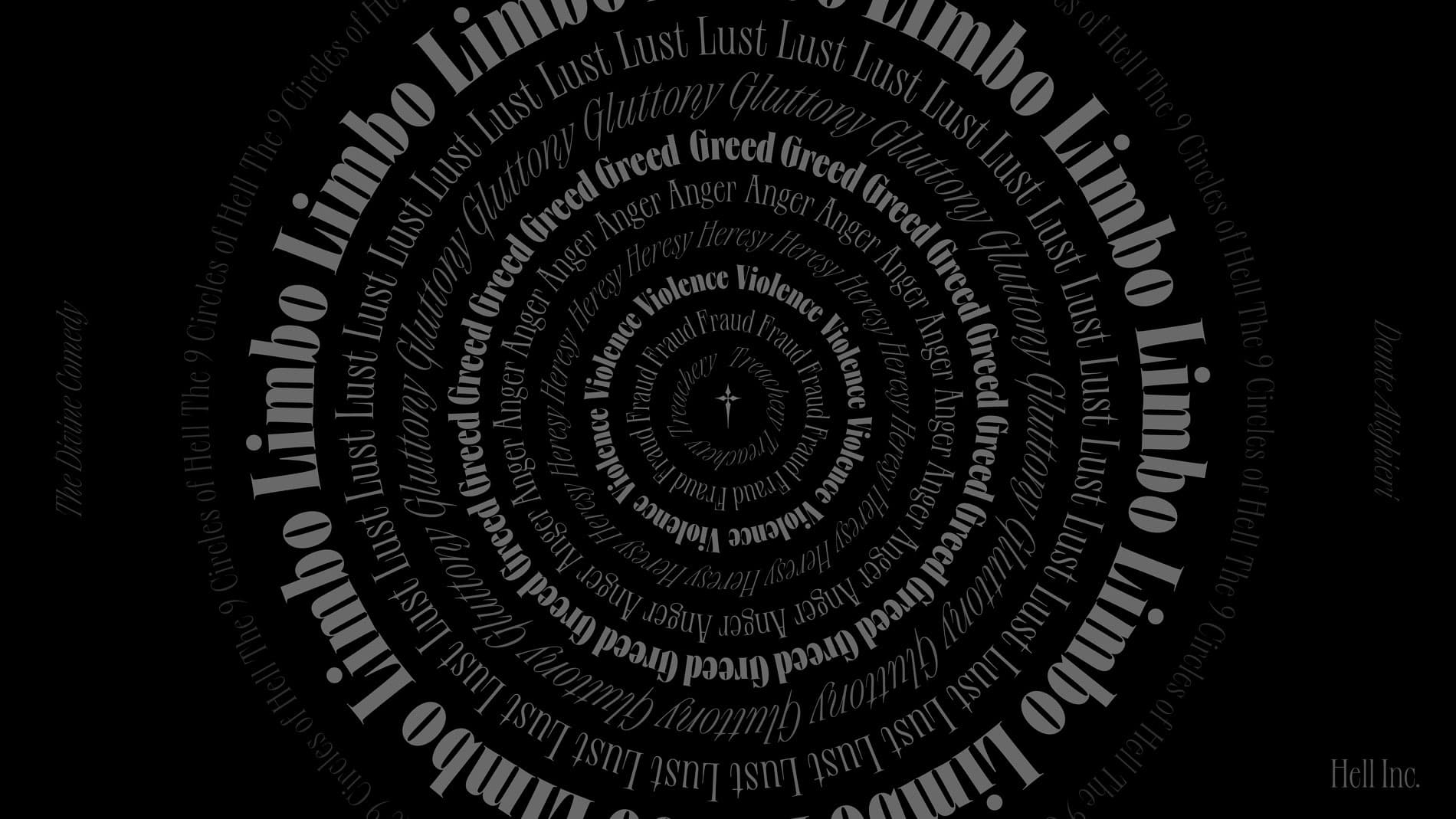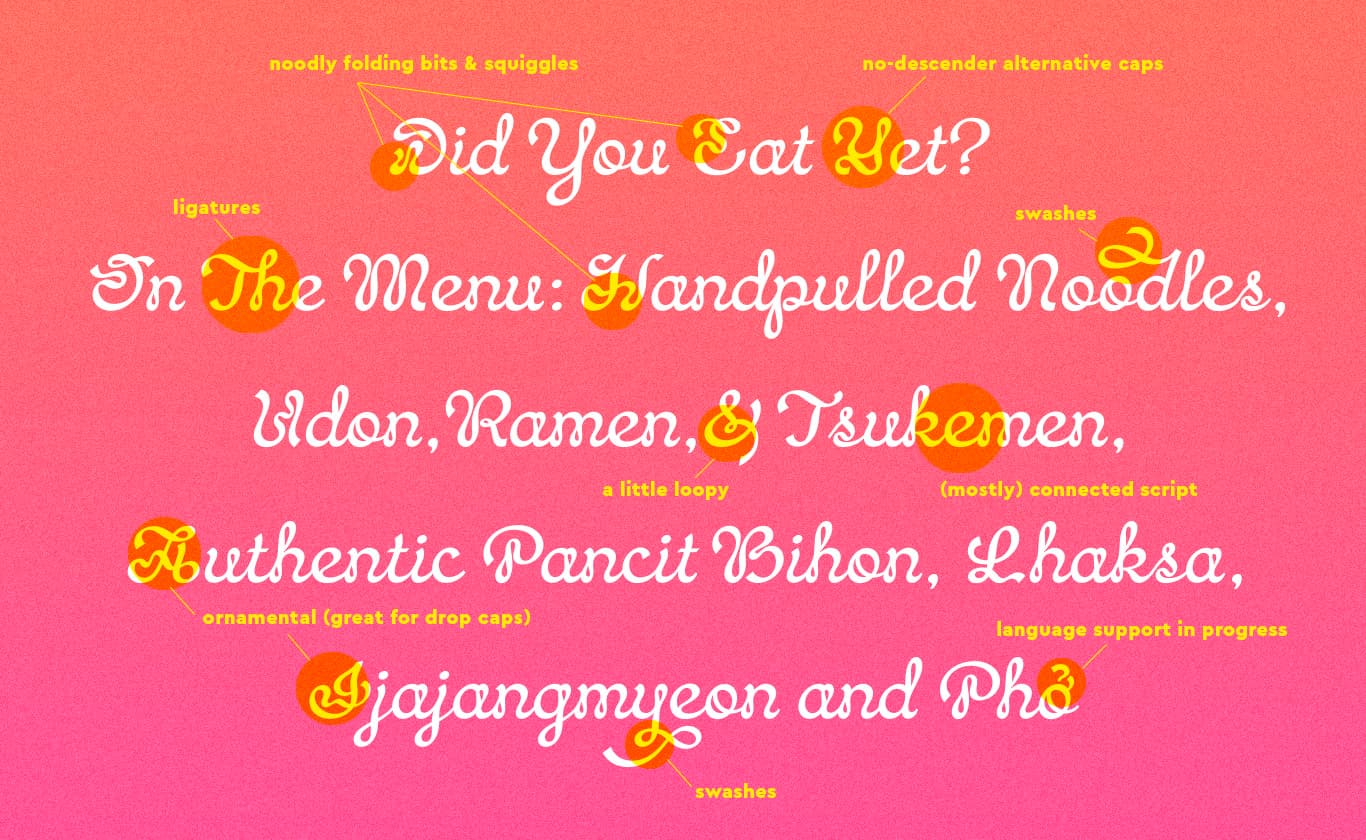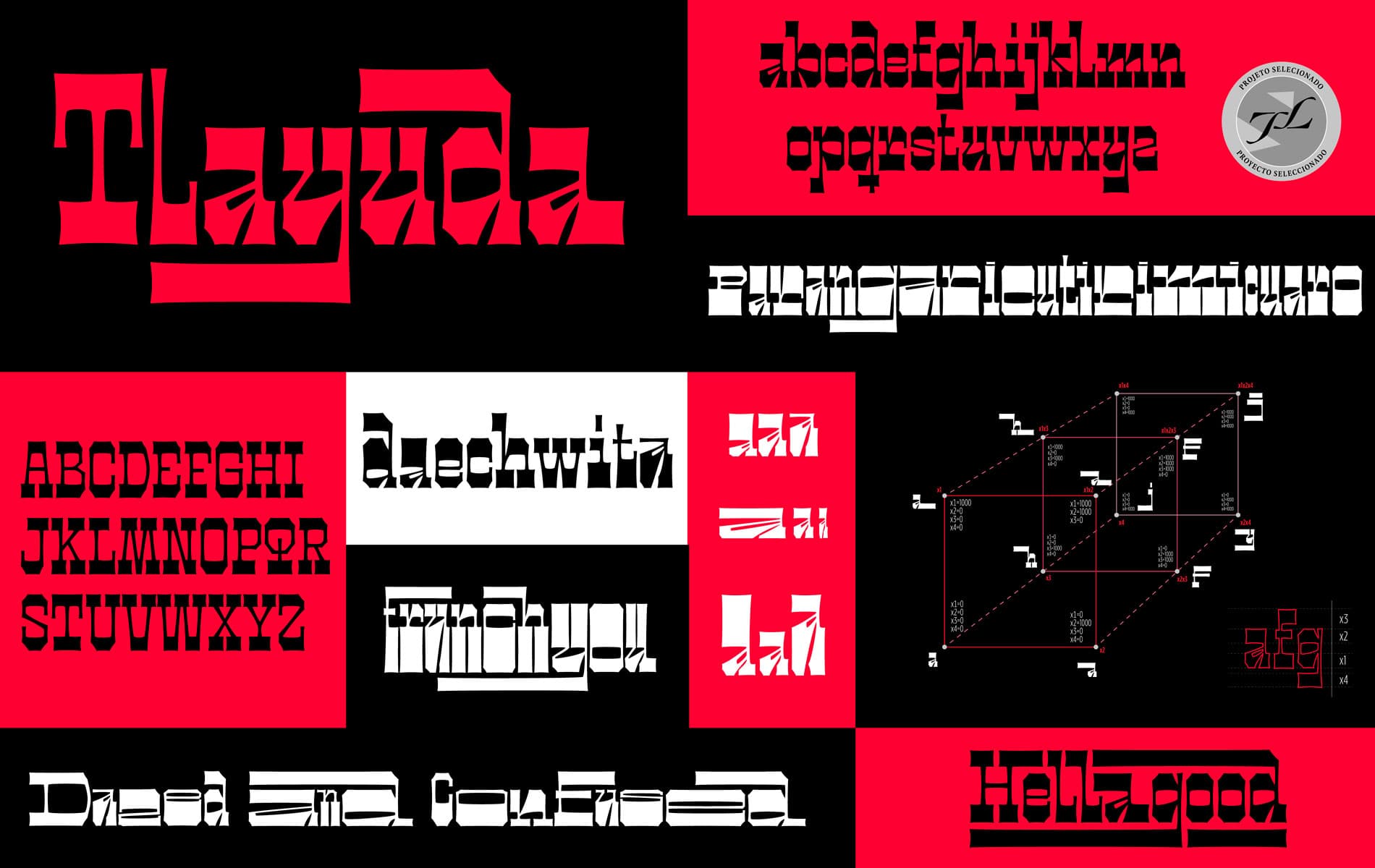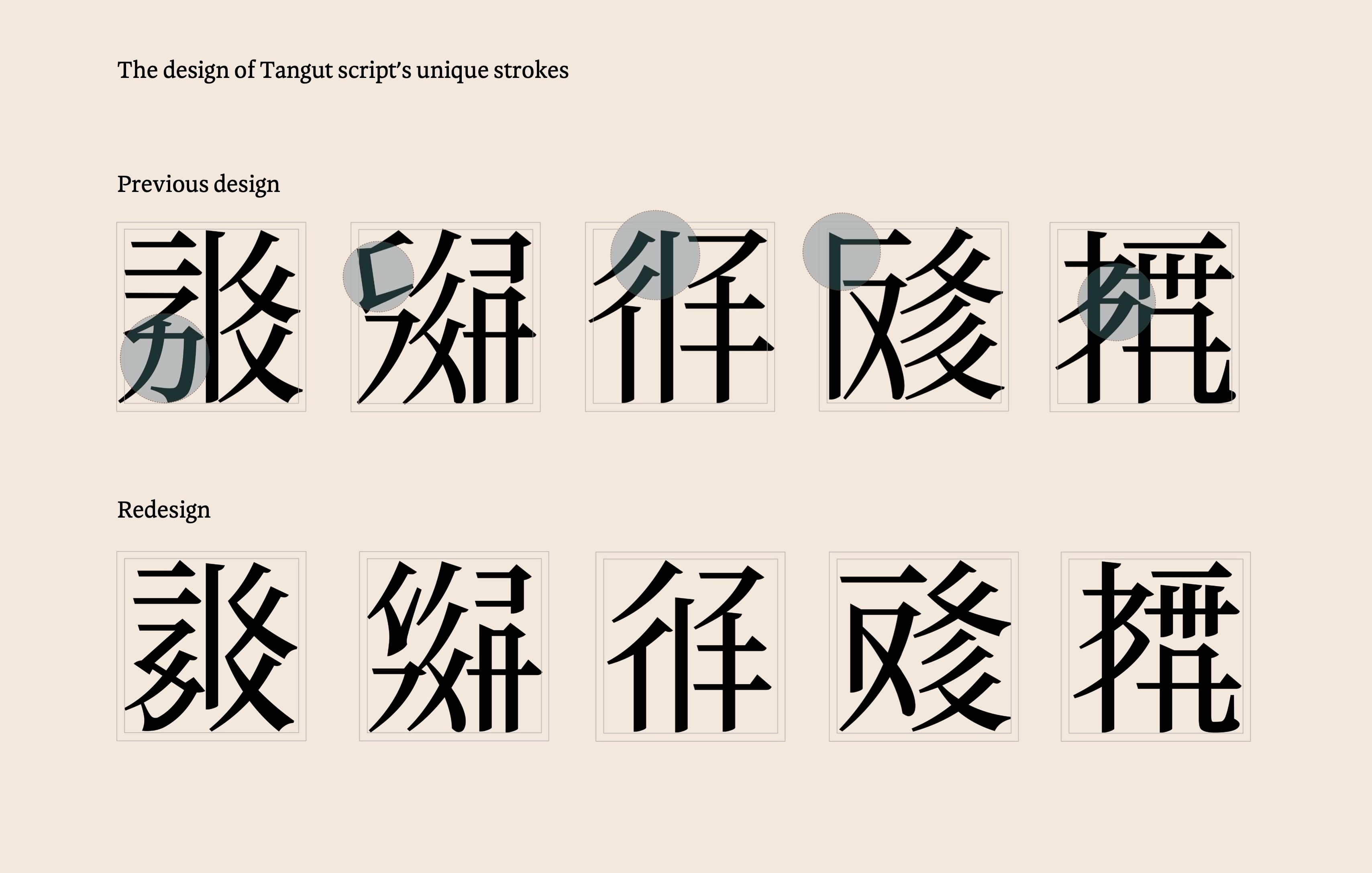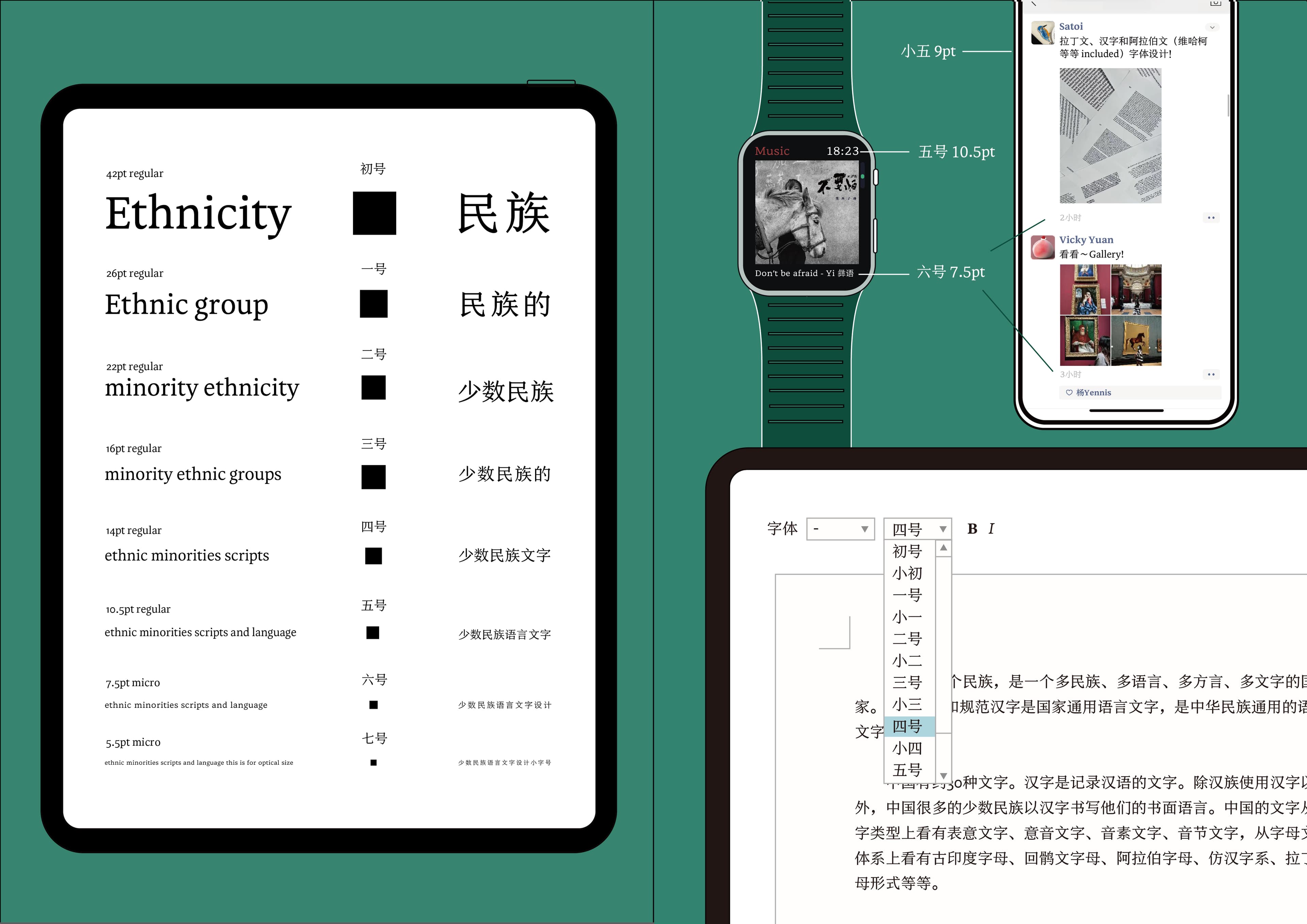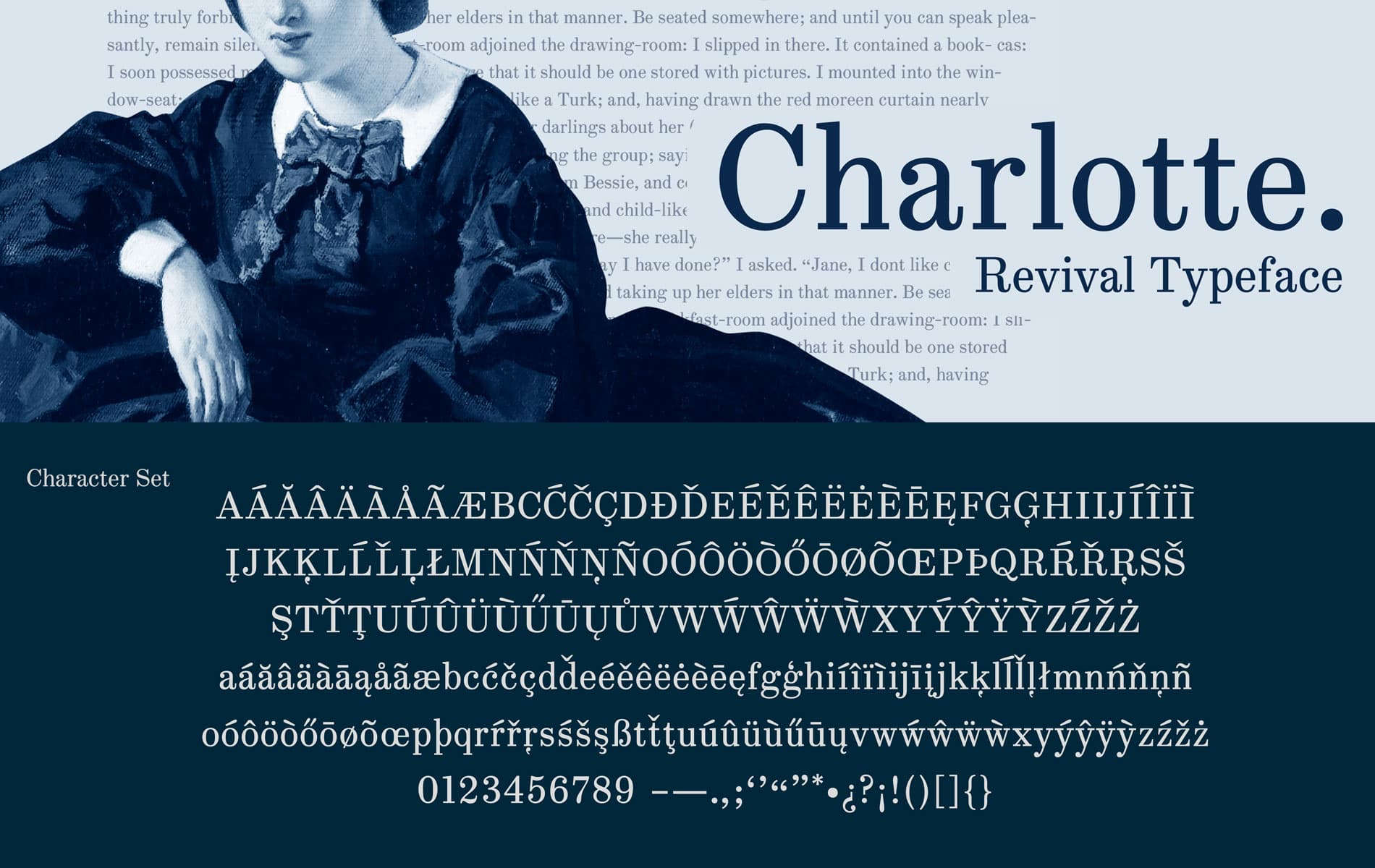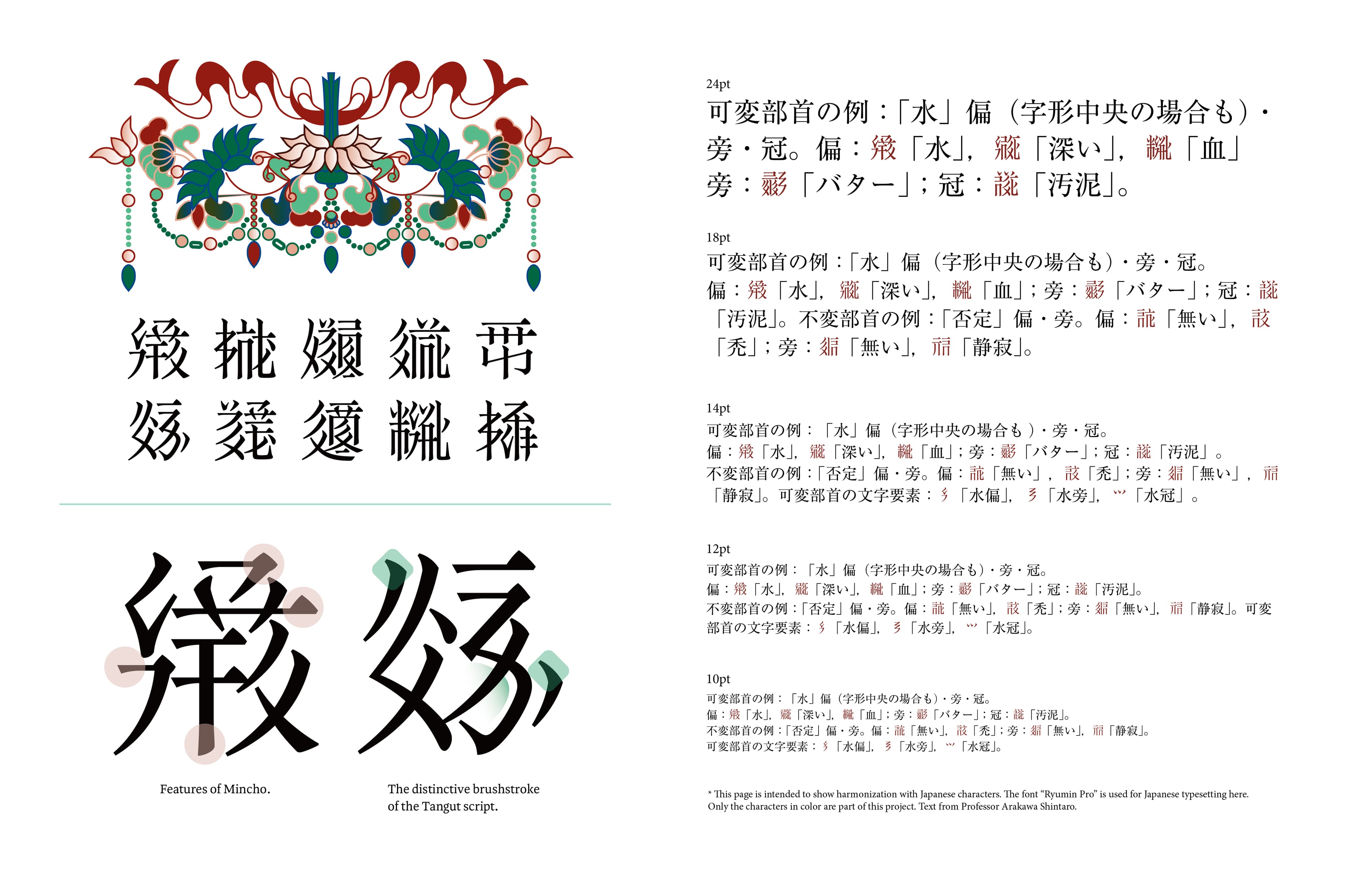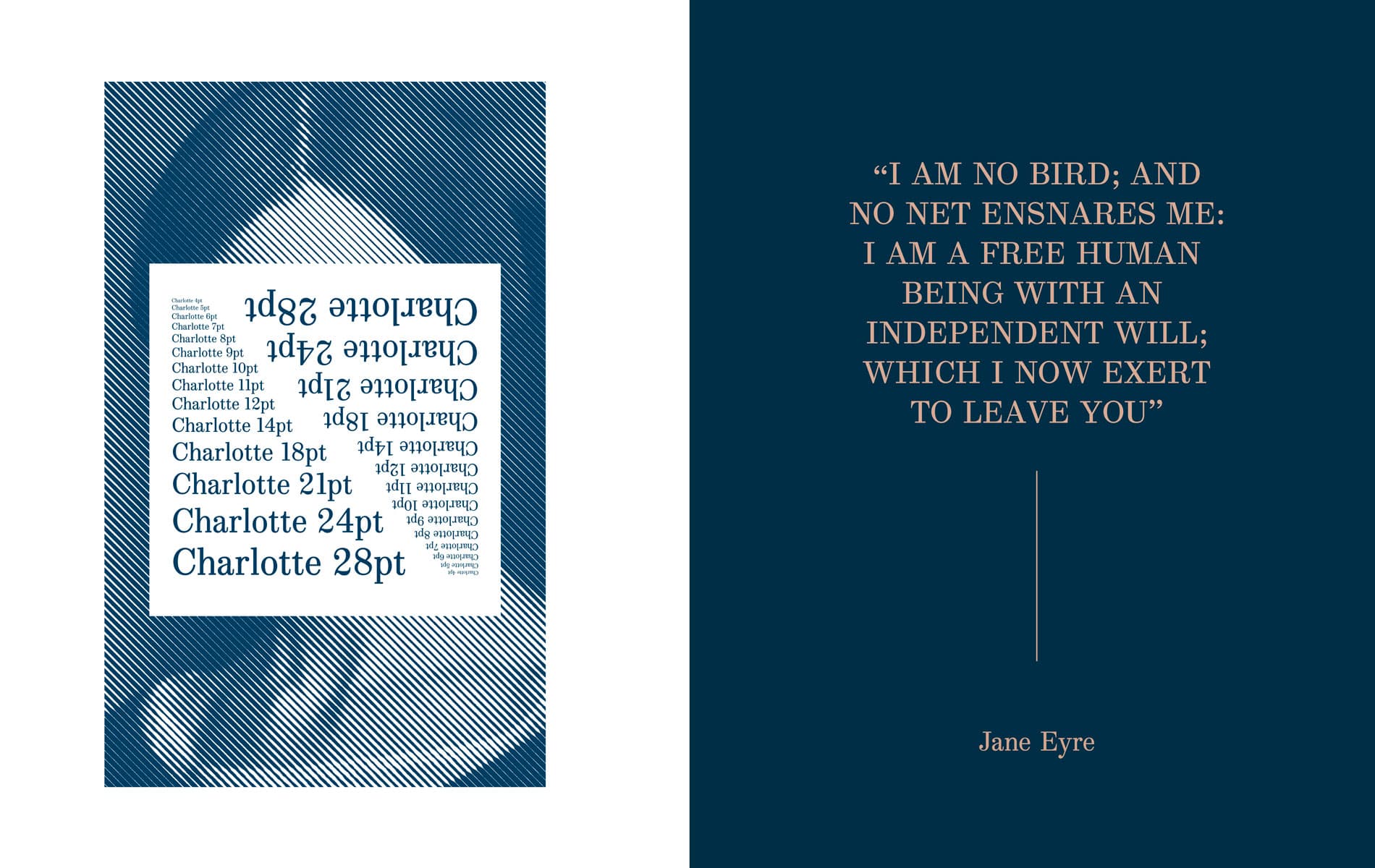
Please join us in congratulating Xicheng Yang, Arlyn Ramos, and Adriana Garcidueñas as this year’s finalists. All three share a genuine passion for type and want to use this medium to preserve their cultural heritage.
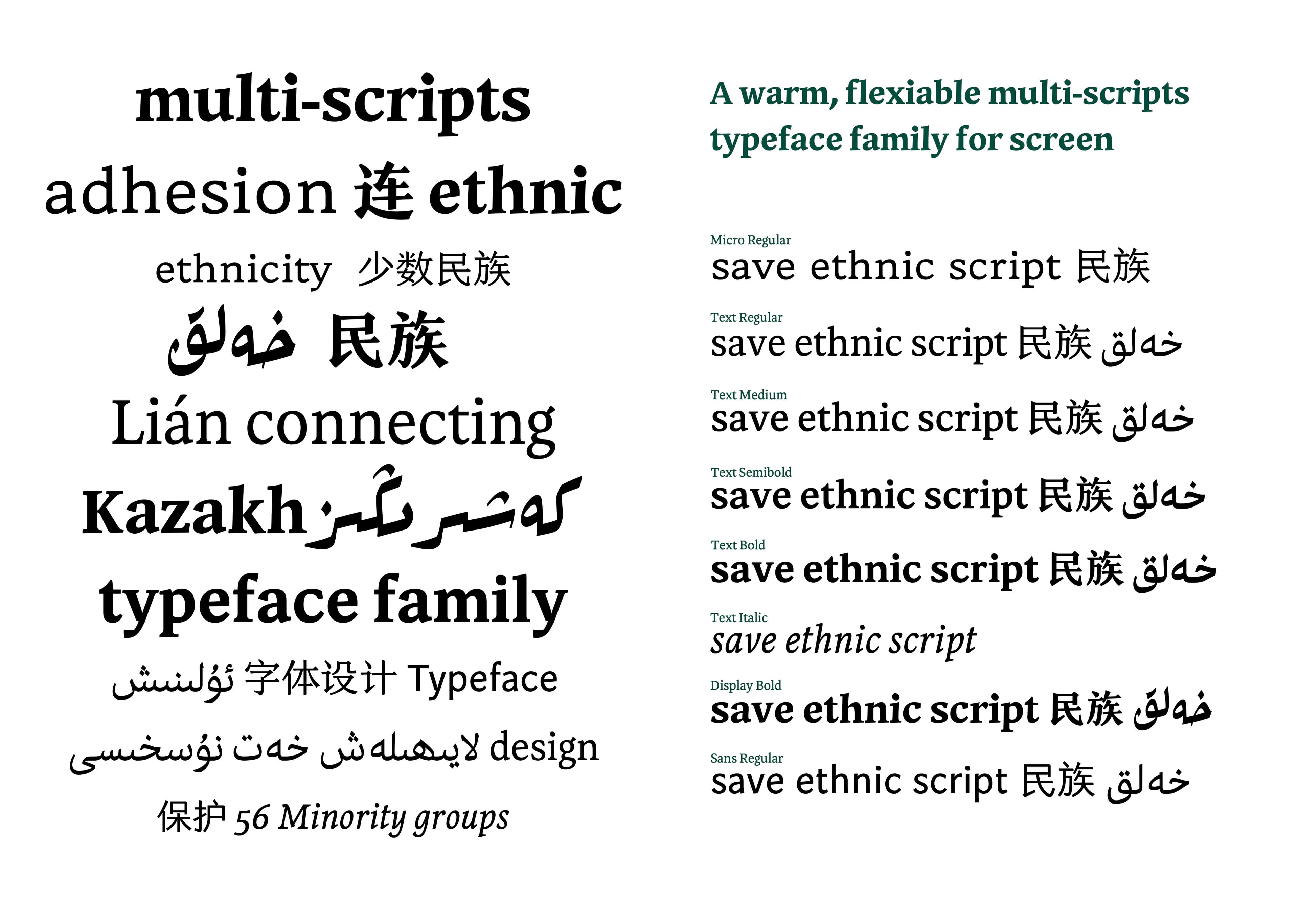
Adriana, Arlyn, and Xicheng share not only a passion for type but also a relentless drive to learn and contribute to the field. Adriana discovered her love for type at a young age, and despite limited resources, she pursued self-education—taking every course on fonts she could find. This led her to a close-knit community of fellow type designers. Her typeface, Tlayuda, is currently in development and is an ambitious variable typeface with a delightfully eccentric flair.
Arlyn came to type later in her career as a multidisciplinary designer but hasn’t stopped creating since. Her prolific output often incorporates her second passion—traditional cuisine—resulting in whimsical, beautifully executed typefaces inspired by her everyday surroundings.
From the moment we learned of Xicheng, she impressed us. She has completed her Master’s and is now pursuing a PhD in Typeface Design at the University of Reading. Beyond her impressive academic accomplishments, Xicheng’s dedication to digitizing Tangut, an extinct script from China, to preserve its cultural heritage is remarkable.
We’re thrilled to introduce these three talented type designers, who are poised to make incredible contributions to the field.
Xicheng Yang
Xicheng Yang is a typeface designer from China, completed her Masters in Typeface Design at the University of Reading, UK, and is now a PhD student in the same department. Her research focuses on developing digital typefaces for the Tangut script, an extinct script used primarily in 11th-13th century China. She has redesigned Noto Serif Tangut for Google Fonts at @liuzhao_studio. She won awards for her typeface designs, including New York TDC awards and Tokyo TDC for AraTangut, and New York TDC Young Ones awards for Lyean. She also presents her research at conferences, promoting the cultural heritage of Tangut and other minority scripts in China.
M. S.: How does your background and upbringing shape who you are? How does your origin story shape your approach or drive to design?
Xicheng Yang: My grandfather introduced me to the beauty of Chinese characters through calligraphy at a young age, which gave me a deep appreciation for Chinese cultural heritage. Growing up in such a culturally rich background made me feel proud of China’s culture. After further study and typeface projects I discovered a largely undeveloped amazing Chinese cultural heritage. There are so many scripts are or were used by different groups of people in China. But there’s not enough effort made in developing digital typefaces for them. As someone from the younger generation, with a strong connection to the digital environment, I feel a great responsibility to preserve these scripts by bringing them into the digital era. This drive to preserve and promote cultural heritage is at the core of my design philosophy.
As someone from the younger generation, with a strong connection to the digital environment, I feel a great responsibility to preserve these scripts by bringing them into the digital era.
Xicheng Yang
M. S.: You have a rich background in type design and are now going for your Ph.D in the field! Tell us about your academic journey and what you are now pursuing at Reading.
Xicheng Yang: After completing my undergraduate studies in graphic design in Beijing, I knew I wanted to dive deeper into type design. That’s when I decided to pursue a Master’s at the University of Reading, which has a strong course focusing on typeface design. My experience there broadened my understanding of typeface development across different scripts. Now I’m in my second year of my Ph.D., where my research focuses on the Tangut script. I’m developing new digital typefaces for this extinct script, making them functional for modern usage while staying true to their historical origins. The research explores the process of inventive re-imagining and adaptation, enabling new uses of the script. Through historical and typographic analysis, as well as practical investigations, it aims to offer a method or model to support documentation and enhance the understanding of revival projects for extinct scripts. It provides a framework for working with archival forms to inspire new uses in digital spaces. Additionally, this project bridges the gap between existing linguistic and historical research and the design of letterforms for extinct scripts, providing a model for interdisciplinary collaboration. It fills the gap of lacking detailed documentation for the revival process of CJK (Chinese, Japanese, Korean) scripts or other sinoform scripts (not only Chinese characters but also scripts influenced by them and individual Chinese characters incorporated into other writing systems), offering essential resources to support other researchers and designers in this field.
M. S.: If you haven’t mentioned it already, tell us about your revival project with Tangut. Why is it important to research and revitalize ancient and other, as you put it, neglected scripts?
Xicheng Yang: My Tangut revival project will start soon as part of my Ph.D. Tangut typefaces are currently used mainly in academic papers, and scholars in different countries have different preferences in terms of font style. Tangut was created in the 11th century and was used for about 300 years, so it didn’t originally have styles like SongTi that are common today. However, there are some Tangut typefaces in SongTi style, which brought up a discussion on social media about: whether a new style should be applied to the Tangut script, and whether this is the behaviour of one culture being forced upon another. Therefore in my project, I will explore the style of Tangut typefaces and develop new digital typefaces suitable for different typographic environments, such as multi-script settings, varying text lengths, and both horizontal and vertical writing direction’s layouts. In 2022, together with my MATD (MA Typeface Design) classmate Kaito Osawa at the University of Reading, we've developed a custom Tangut typeface, AraTangut, for the paper of Japanese Tangut scholar Shintaro Arakawa. It creates a unique and ethnic flavour between Mincho (SongTi) style and Tangut calligraphy, which will be included in my Ph.D. research.
It is important because while there are scholars studying the script itself, there hasn’t been much effort to create functional, modern digital typefaces for it. Reviving extinct scripts like Tangut helps preserve cultural heritage. These scripts aren’t just historical artefacts—they can have a place in modern design and academic research. Additionally, it also provides a framework for reviving other endangered or extinct scripts, such as Khitan scripts or Old Uyghur script, by documenting the process of translating historical forms into digital media. By designing a Tangut typeface, I’m contributing to a broader movement of bringing neglected scripts back to life, ensuring they remain part of our shared history.
Arlyn Ramos
Arlyn has been doing branding, graphic design, web, ux, and lettering for more than a decade. She has designed for clients big and small, from beloved local small businesses to Hawaiian Airlines. She recently graduated from Type@Cooper's Condensed Type Program with a certificate in typeface design. At Cooper Union she juggled side trips to bakeries and neighborhood adventures while working on her typeface project for school. She often smuggled bites of pastries in between glyph-making and type critiques.
Born in the Philippines and raised in Hawai’i, Arlyn hopes to contribute meaningfully to the type community in the ways she can as an Ilokano Fil-Am woman designer from Kalihi. She aims to create representation for people like herself, advocate for better language support and the design needs of her community, create thoughtfully crafted custom type for local Hawai’i brands, and share her learnings about design in her writing.
M. S.: When referring to your passion you say “the stoke is real”, or may we suggest “the stroke is real”, How has your passion pushed you toward your dream of becoming a type designer?
Arlyn Ramos: Hahaha, yeah, one of my bosses once said, “the stoke is real,” when making an observation about me. I do have a fire—a hunger and a curiosity. Maybe I don’t know how to be any less stoked, because it’s fun in and of itself to explore, experiment, and make things. It’s good to be excited about the work you’re doing and the process itself. It helps you stay motivated especially when you don’t feel good enough, have trouble flowing, or experience failures.
Maybe “stoke” is hope, too. Many times during my creative career I was completely lost and questioning what I was doing. But there was always at least a little bit of fight left inside, and I’m so glad I didn’t give up on whatever this was supposed to turn out to be. Although I always felt at home playing with letterforms, I actually didn’t know I wanted to be a type designer until recently. Then this domino effect happened, starting with learning the Glyphs app through Victor Baltus, then taking Juan Villanueva's Type Electives class and loving it, and finally, going to New York this past summer to study typeface design at Cooper Union’s Condensed Type program. Years of keeping up the stoke, passionately learning and creating, while searching, praying, and listening to life’s little nudges have led me here.
When we provide greater language support, it means greater inclusivity for various peoples and cultures. Needless to say, having the glyphs available means a night-and-day difference for semantics
Arlyn Ramos
M. S.: Tell us why it is important to advocate for greater language support in Latin typefaces, such as Hawaiian and Vietnamese.
Arlyn Ramos: Living as a designer in Hawai’i, I work with Hawaiian words often. Many place names are in Hawaiian, Hawaiian values and concepts are often integrated into daily life and local culture, and don’t forget the names of food! When we provide greater language support, it means greater inclusivity for various peoples and cultures. Needless to say, having the glyphs available means a night and day difference for semantics. And being limited to certain fonts is stifling. I really notice this limitation on the web. Having more fonts with support means more possibilities and options for visual expression.
M. S.: From your application, it’s clear you love food. Tell us why it is so important to you and how it has influenced your type design. Take us through examples of your typefaces that exemplify this.
Arlyn Ramos: Food is my main way of connecting to culture and to other people. I love learning about food, cooking, sharing meals, and going on foodie adventures.
Food can carry so much power and feeling. There are recipes, flavors, and dishes I associate with core memories. This is probably why food is a recurring theme in my work.
For my typeface, Noodeau, the inspiration is clear—noodles. I think about and eat noodles quite a lot. Noodles have been with me through the ups and downs of life—especially the downturns. So I was compelled to design a font that captures a distinctly noodly spirit. After a few rounds of type cooker sketches, I started pulling Art Nouveau inspiration in and ended up drawing some promising squiggles and folds. Eventually, the font adopted a little bit of a slant to facilitate forward movement, and I also decided it needed to be a connected script for maximum noodle power. This typeface project presented many challenges in achieving legibility, evenness of color, and balance. But with help from my mentors (shout out to Type Electives), a lot of massaging, and a little bit of rule-breaking, in the end the system somehow works.
Adriana Garcidueñas
Adriana Garcidueñas is a graphic designer and type designer. Studied in the TypeWest program in 2023 with a full BIPOC scholarship and also she studied at Type@Cooper Condensed this past summer. Currently she works for the arabic type foundry ArabicTypography.com directed by Tarek Atrissi doing both arabic and latin typography; she also very recently started freelancing for DOT Type Foundry (Death Of Typography) located in Singapore. She can be found being Teacher Assistant or attending to type, lettering or calligraphy workshops and when she finally has some free time she watches BTS videos ♥. (Yes, the Korean boyband).
Malee Scholarship: When did you first get interested in letterforms?
Adriana Garcidueñas: I think I became obsessed with letters from a very young age. You see, I’m dyslexic, so words and letters didn’t make much sense to me. After countless hours of practice trying to differentiate “b” from “d,” I found a method to distinguish them by making the “b” a sans serif shape and the “d” with a cursive ductus. Perhaps from that moment, a sensitivity to letter shapes sparked in my mind. Time passed, and I started to collect nice letters by printing “The quick brown fox,” because I didn’t know how to install fonts on a computer. The best next thing I could do was print them and trace them by hand to create the most fabulous and flashy homework for school (I still have those printed foxes at my parents’ house).
I think the day I taught myself how to install a font on a computer was one of the happiest days of my entire life—seriously.
I explored how to externalize my feelings of angst, delusion and disappointment, through type design, I also guess the countless hours sitting at the desk thinking about this helped as some sort of therapy
Adriana Garcidueñas
M. S.: What has been a formative experience for you in your journey to type design, and what would you recommend to aspiring type design students?
Adriana Garcidueñas: The most important thing I have found in my journey in type design is a community.
When I started in the world of lettering it was a very lonely journey for me because I lived in a small town, I didn’t know anyone who was doing the same thing as me, so I’m pretty self-taught. At that time there was not much information on the Internet about lettering or calligraphy, much less about typographic design. So I went to Mexico City and bought a calligraphy book, and I started with exercises and practices, but only with the company of this book (which was actually a compendium of calligraphy styles). Most of the time I was frustrated and desperate to get the damn ink to flow through the very flexible pointed nib, spoiler: wrong ink with wrong nib. But at that time that was all I had, so I kept practicing until one fatal day when I broke the only pen holder I had in half, and that’s not the bad news, I mean yes, but what I was practicing English Roundhand, a very soft hand and fluid style of calligraphy, that was what made me stop and realize that I was doing everything wrong and that I had to get help.
When we were confined to our homes, I first heard about the Letrástica Community—a group of people who share a love for making letters. During the pandemic, there was “Jueves de letritas” (Thursday of letters), a Zoom meeting where people got together to do TypeCookers. I was shy at first, but participating was one of the best decisions I made. In this group, I leveled up my skills with letters, learned about educational programs and scholarships, and discovered that I wasn’t alone. Now I’m happy to call many of them my friends. It’s to these friends that I run for help when I mess up a glyphs file, or need advice on pricing a font, or just want to talk about life.
I recommend type design students join a community or start their own with other type nerds (classmates or friends interested in letters). It’s enriching and super nerdy, but it’s really fun, I promise. ;)
M. S.: What has/have been the most interesting typeface design project(s) you have drawn so far? Tell us more about your inspiration and experience.
Adriana Garcidueñas: My first most interesting project actually I sketched in the first TypeCooker session with the Letrástica Community. It’s called Tlayuda because that was the word we used during that session, and it’s a font that explores the limits of variability in an unconventional way by playing with the plasticity of the letter.
Another project that I’m really fond of is called Hell Inc. It is my final project from the TypeWest program, which is a type family that takes inspiration from the Divine Comedy and the psychedelic movement. With this type, I explored how to externalize my feelings of angst, delusion, and disappointment through type design. I also guess the countless hours sitting at the desk thinking about this helped as some sort of therapy. The heavy weight represents Hell in Dante’s Inferno, the regular weight represents Limbo, and the italic weight represents Heaven—it's an allegory of redemption through weight and proportion.
And the final and most recent is my final project from Type@Cooper called Novellus, a typeface for new and eternal classics. It's a text typeface where legibility and good rhythm for long texts are the main goals. This typeface is really close to me because in the process of making it, I learned so much, but I also can't believe I made it! I mean, it's so out of my style, but I like it a lot!